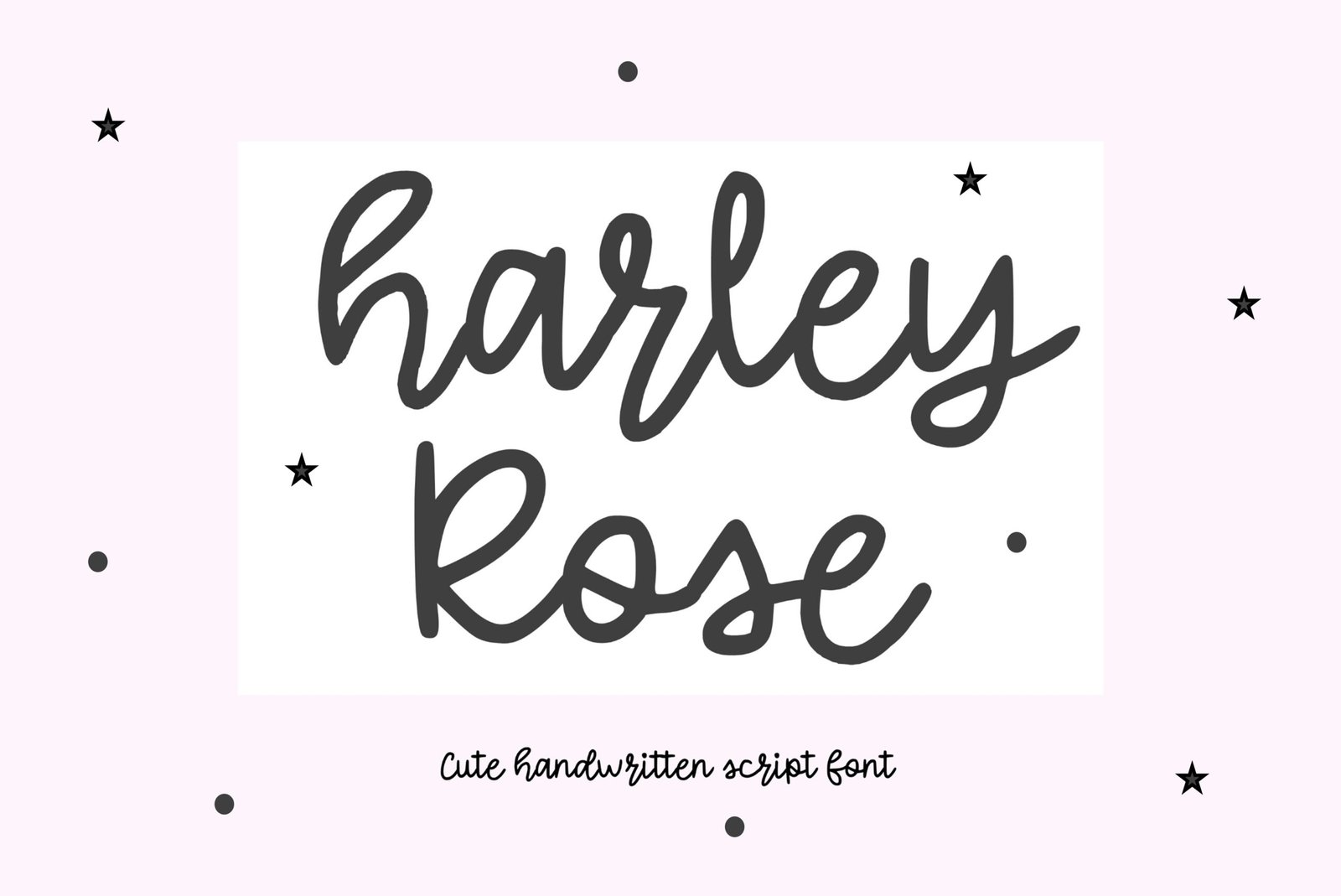
Harley Rose Font
Cute handwritten script font. “Harley Rose”. Perfect for goodnotes, note taking, advertising and display purposes, including banners, book covers, shirts, posters, logos and much more!